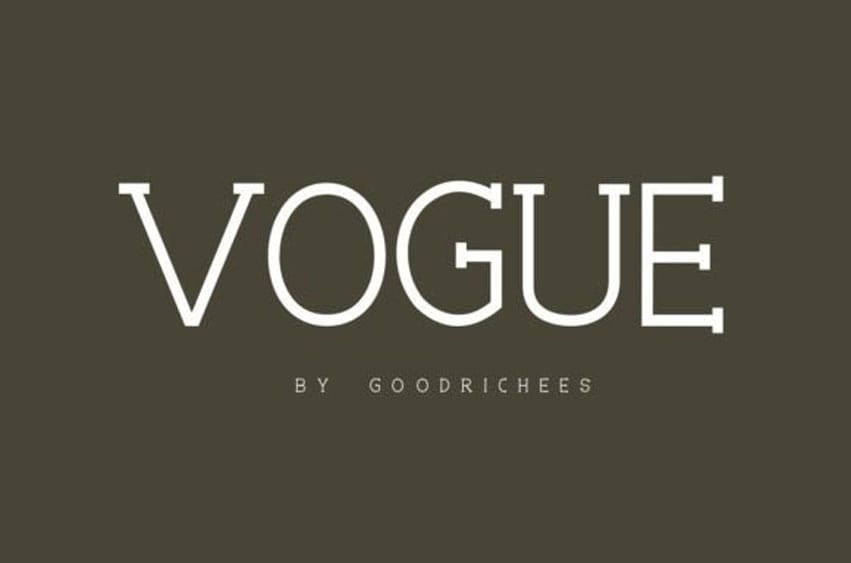
Vogue Elegant Font is a soft and elegant serif font, defined by warmth and character.
Suitable for a wide variety of designs due to its neat and simple style, this font has the potential to become your favorite go-to font, no matter the occasion!